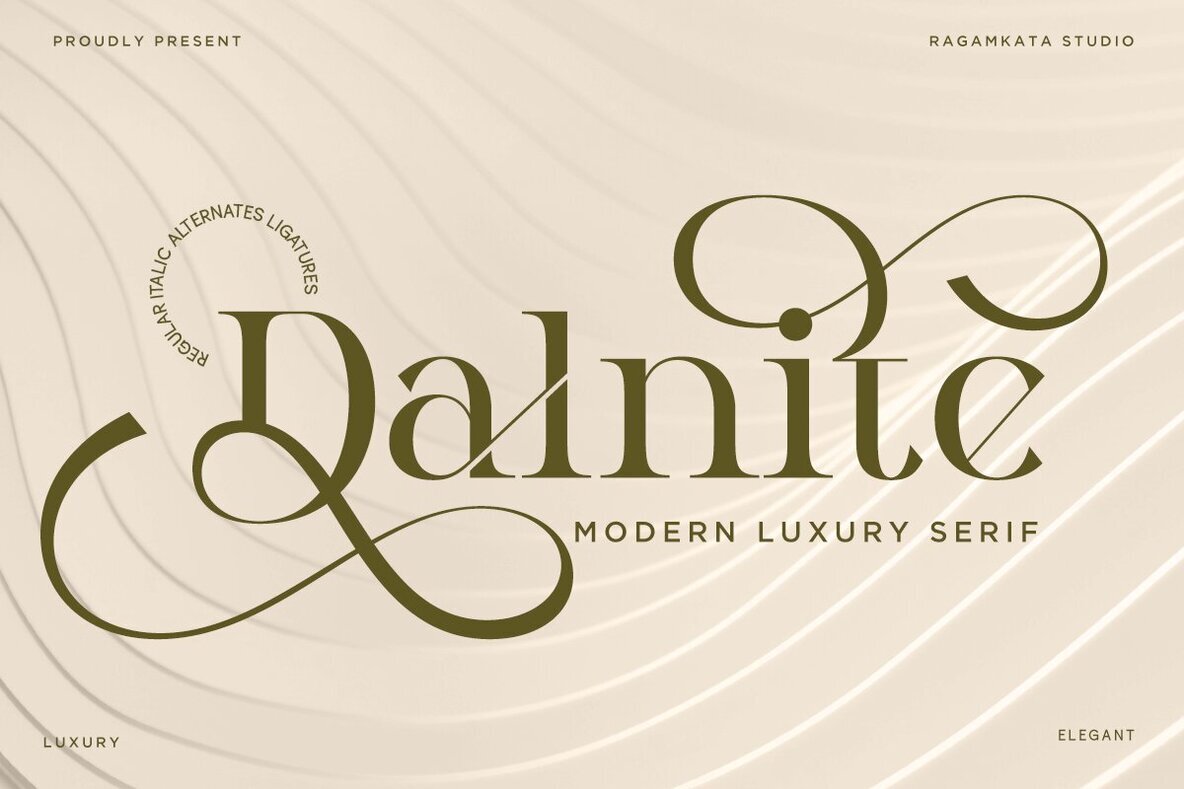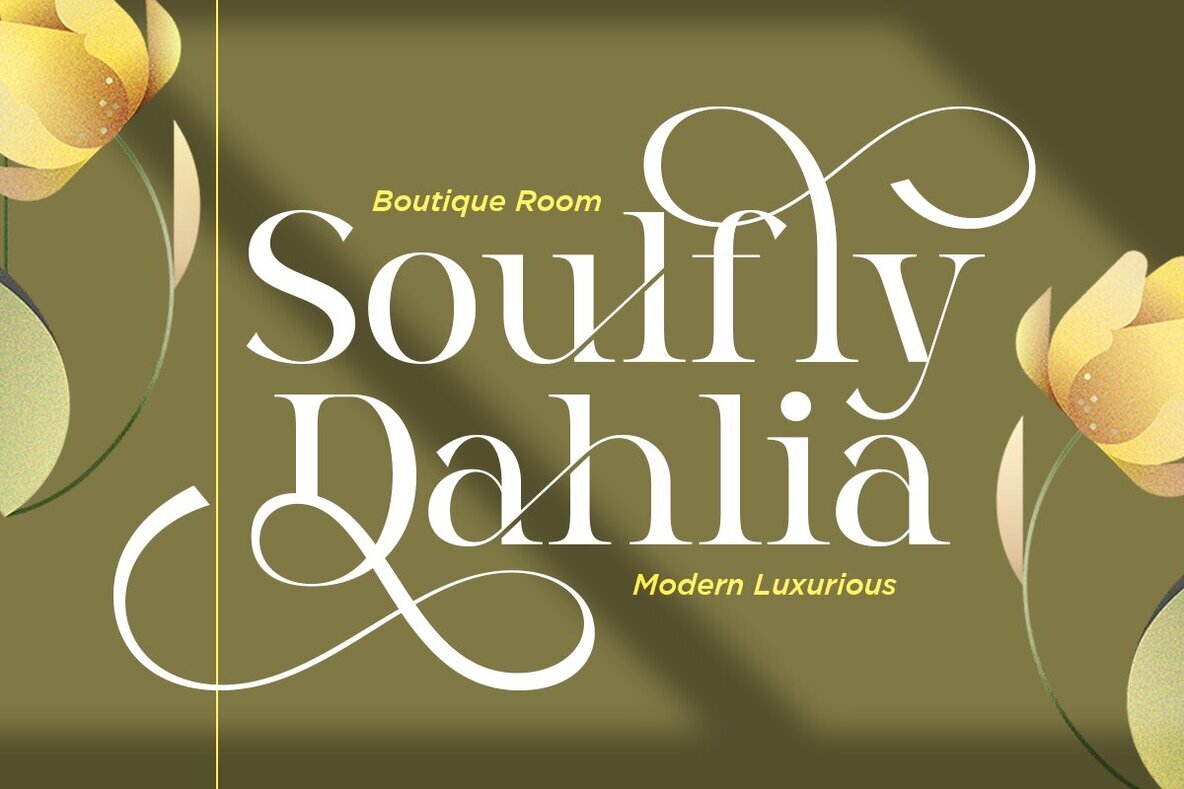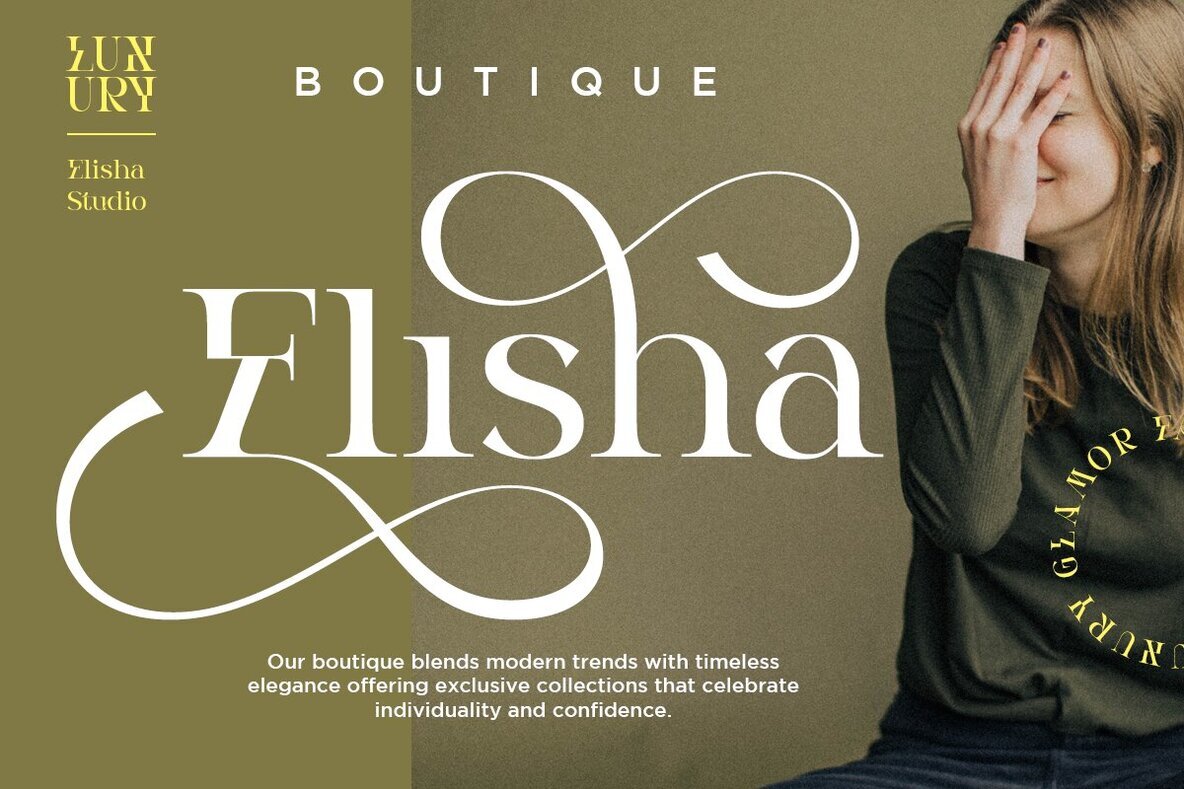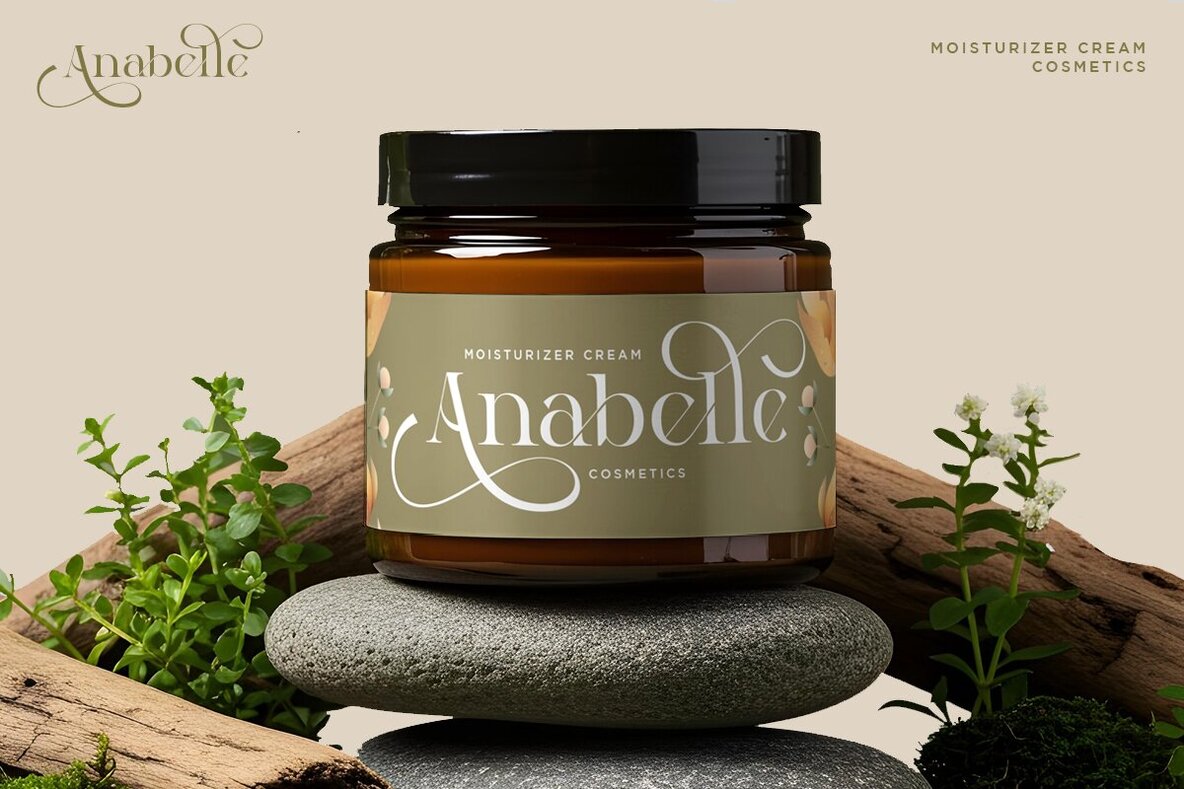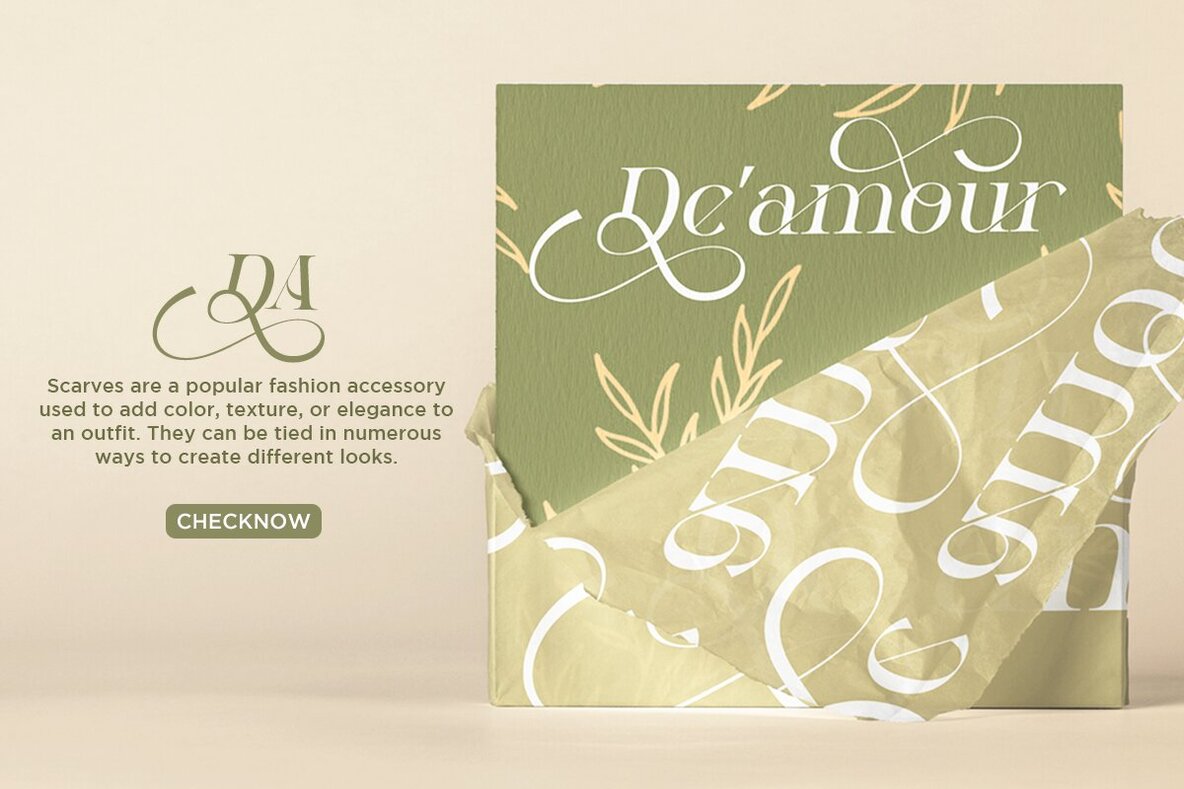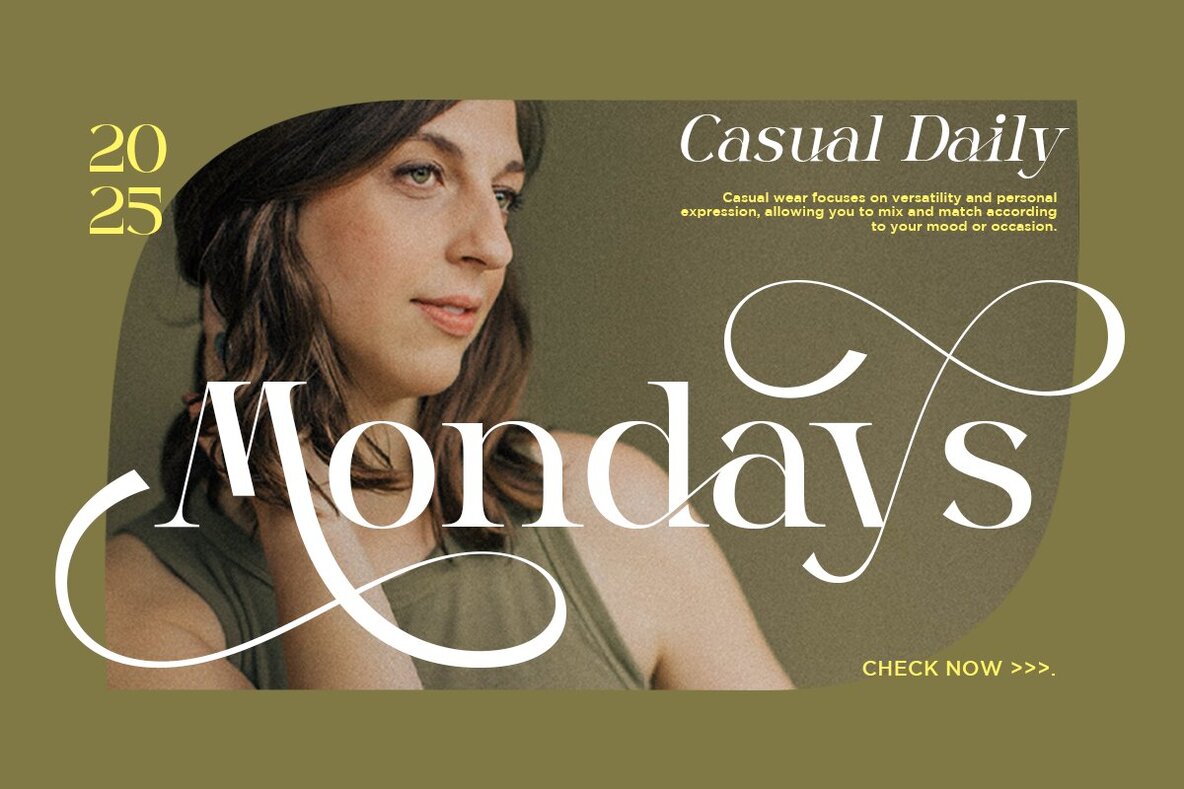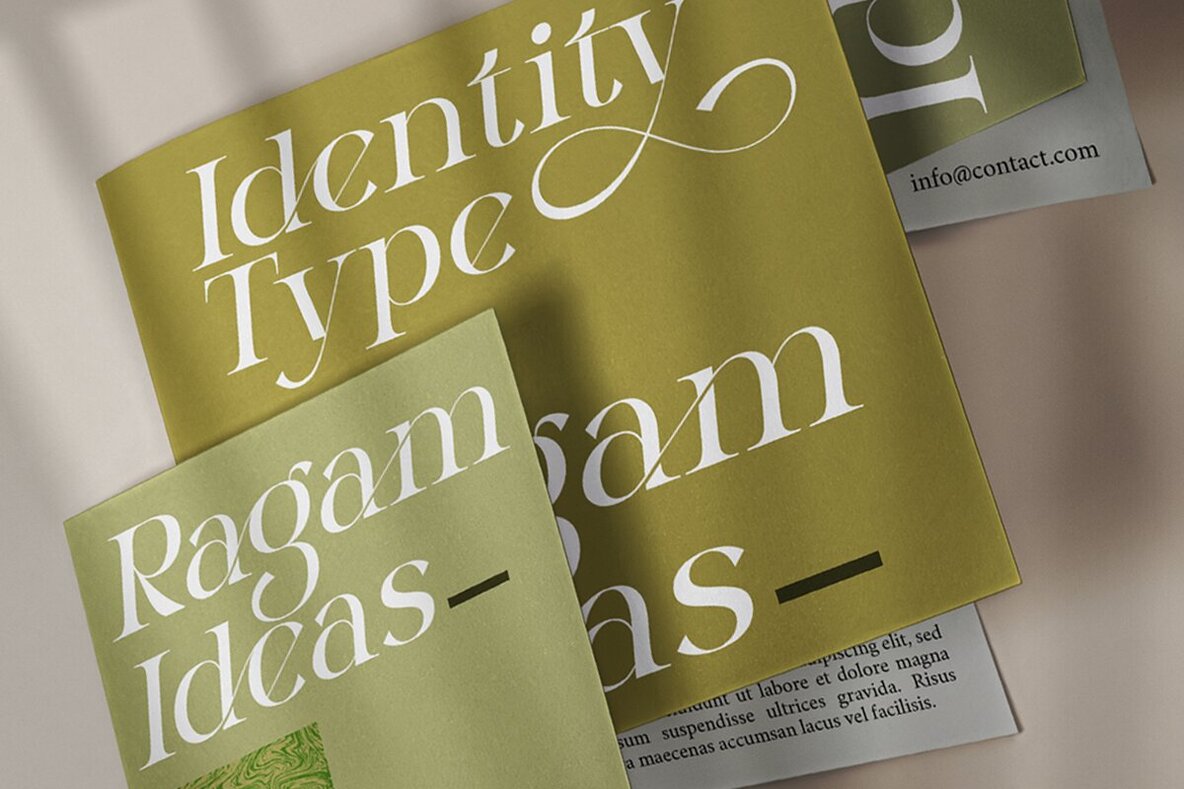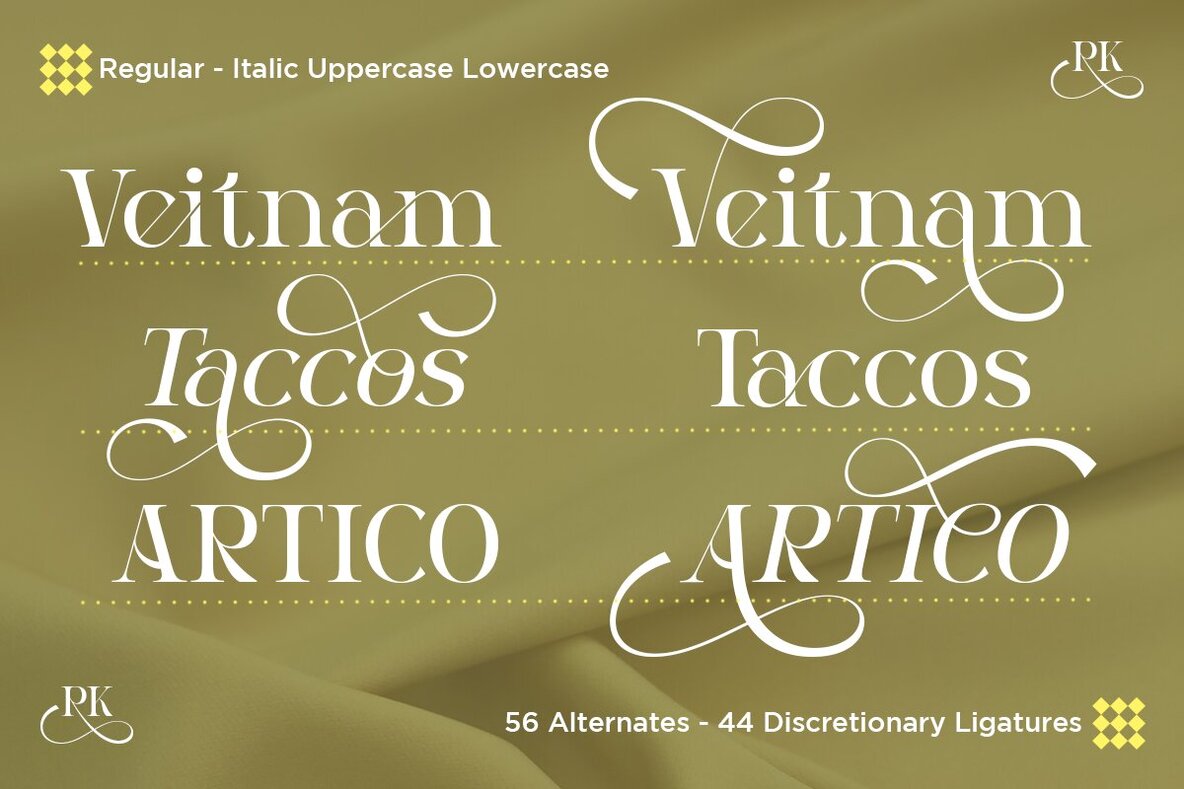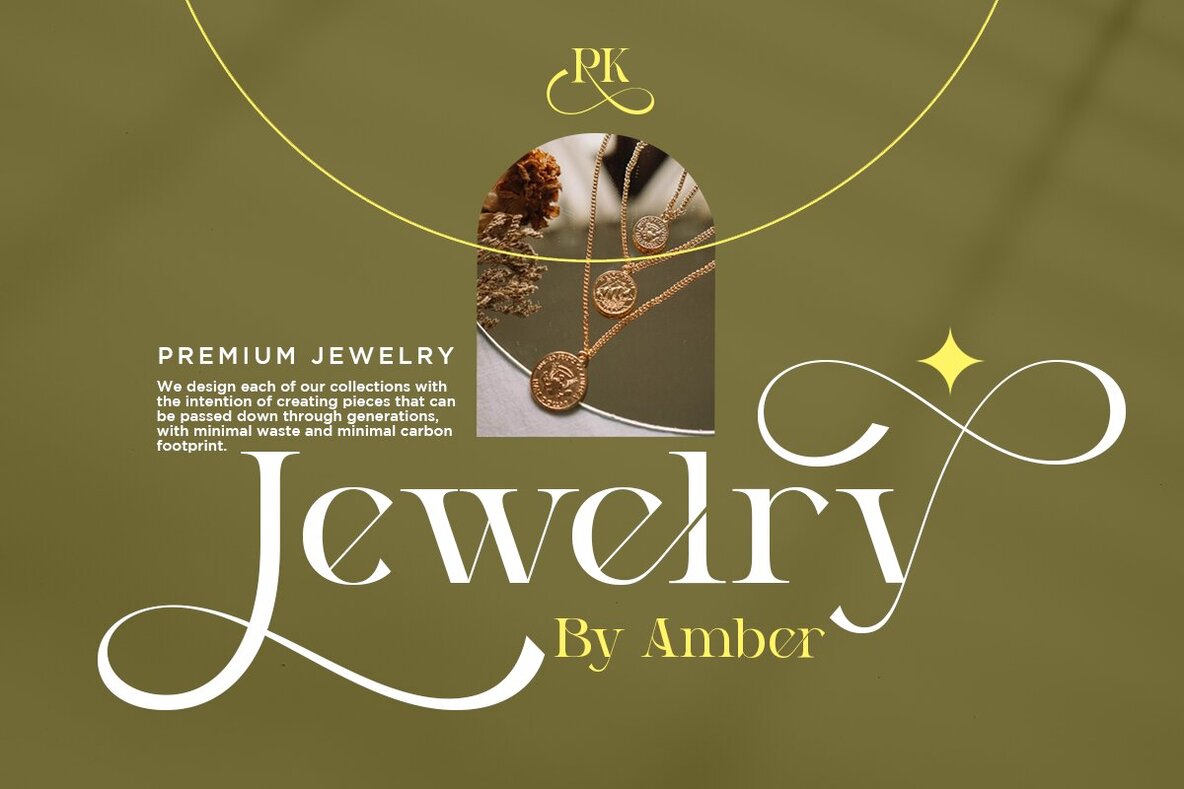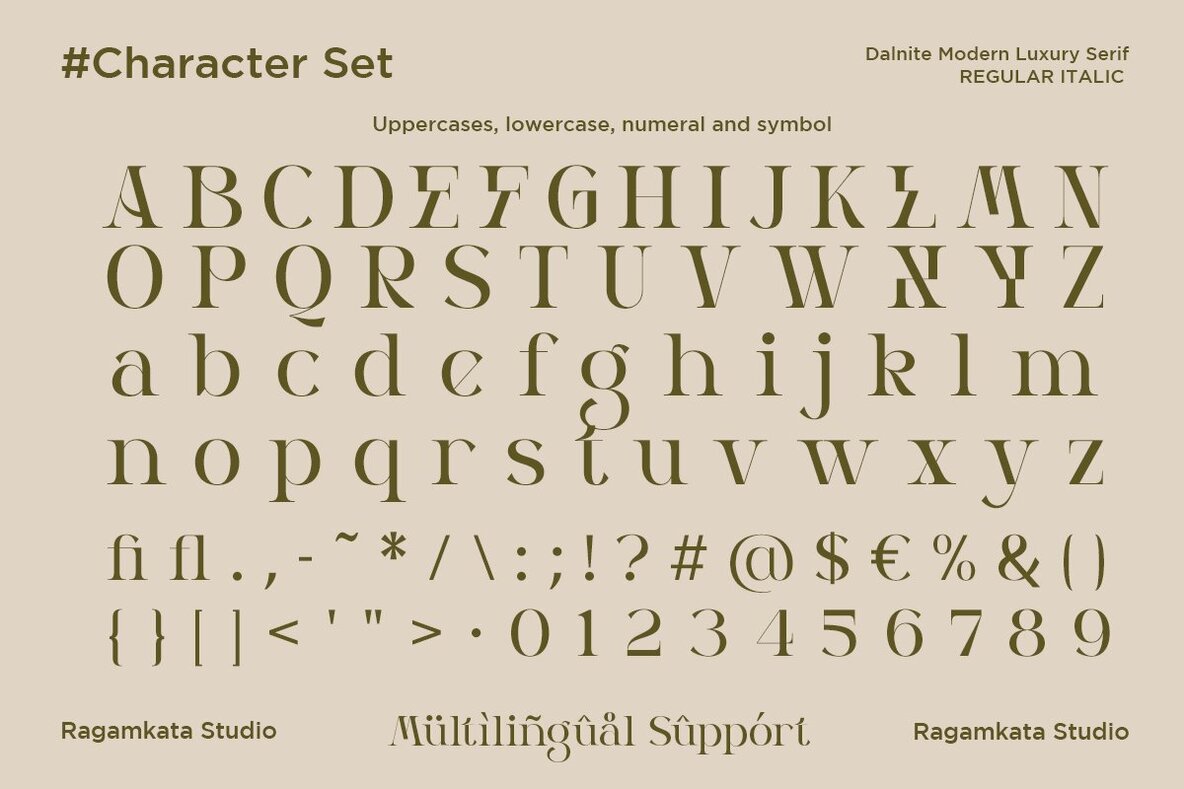
Dalnite Font
Dalnite is a luxury serif typeface that combines timeless sophistication with a modern editorial feel. Its balanced contrasts, elegant ligatures, and refined alternates lend a polished character to high-end design projects. Whether used for branding, fashion layouts, or elegant wedding stationery, Dalnite brings a graceful, contemporary touch to any visual identity. Ideal for upscale logos, striking magazine headlines, invitations, and premium packaging, this versatile font family supports creative flexibility with regular, italic, and alternate styles. Its detailed features ensure distinction and refinement in every application.Dalnite Modern Luxury Serif